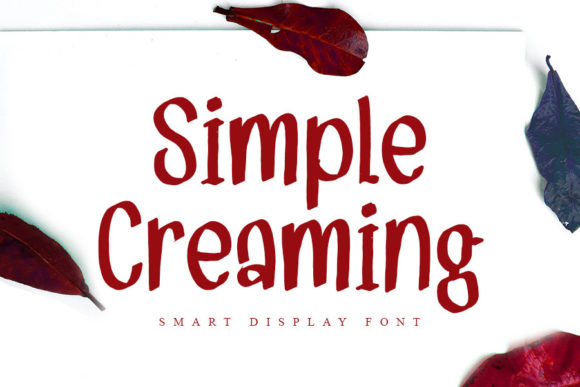
Venture into the realm of visual brilliance with Simple Creaming, a display font that transcends the boundaries of ordinary. Immerse yourself in a world of captivating designs, where every letter dances with grace and elegance. Let your imagination soar as you unleash the true potential of your creative vision.
Immerse yourself in the boundless possibilities that Simple Creaming presents. Its clean lines and captivating curves add a touch of sophistication to any project, effortlessly elevating your designs to new heights. Whether you're crafting eye-catching logos, captivating posters, or alluring social media graphics, Simple Creaming will leave an indelible impression on your audience.
With Simple Creaming as your trusted visual companion, your designs will radiate with an aura of professionalism and poise. Its versatility knows no limits, seamlessly adapting to a symphony of creative endeavors. From polished presentations that command attention to stunning websites that captivate visitors, Simple Creaming transforms ordinary concepts into extraordinary masterpieces.
Step into a world where creativity flourishes and ideas take flight. Simple Creaming is more than just a font; it's an invitation to explore the depths of your imagination and manifest your dreams into tangible realities. Its timeless appeal and versatility make it an essential tool in the arsenal of every creative visionary, empowering you to craft designs that resonate with audiences and leave a lasting legacy.